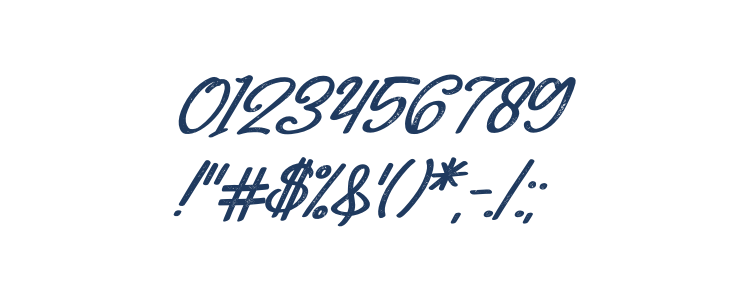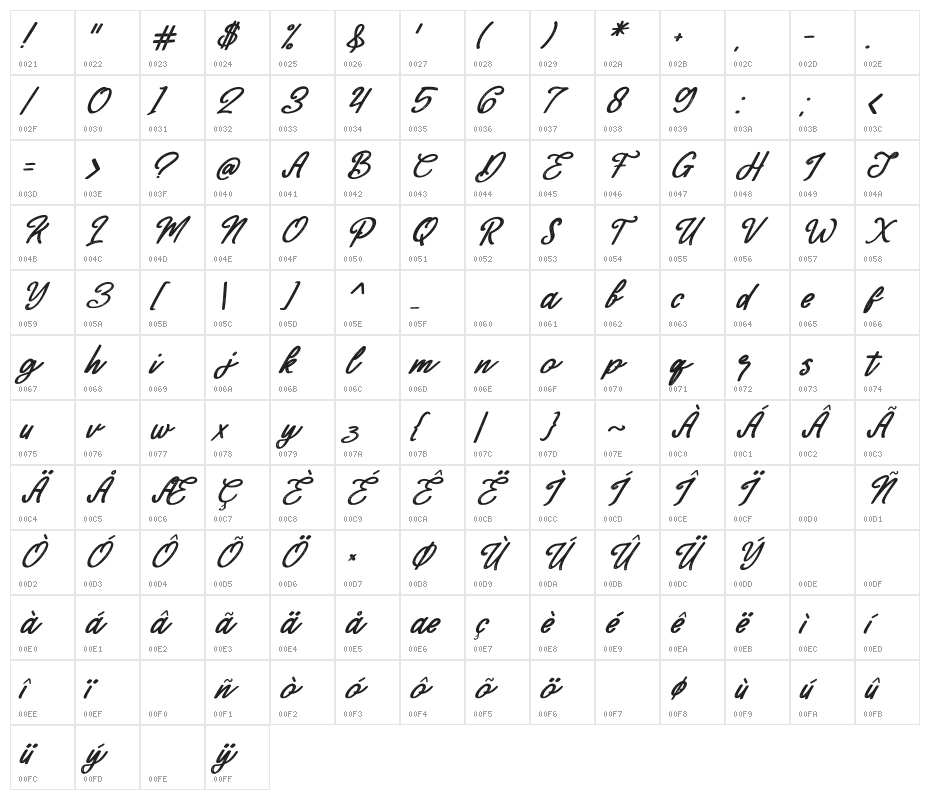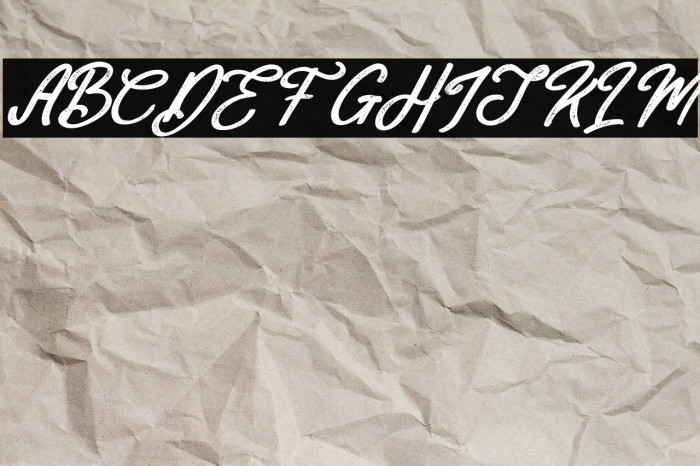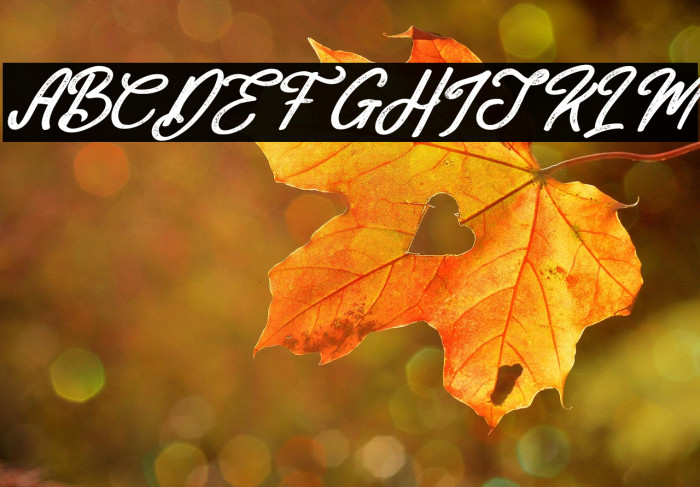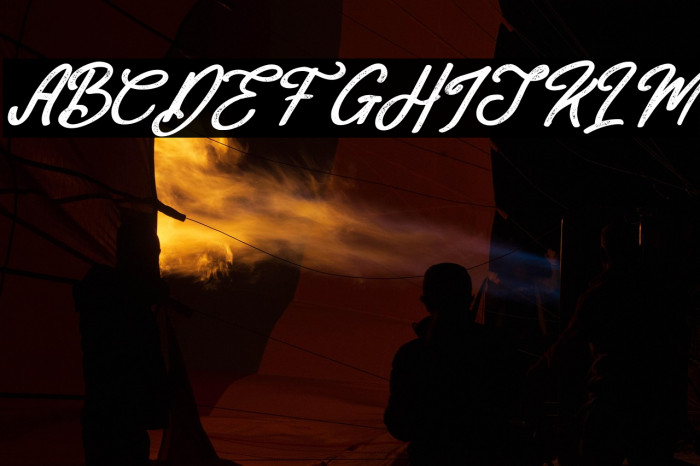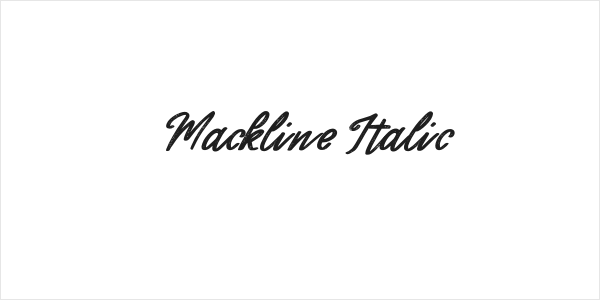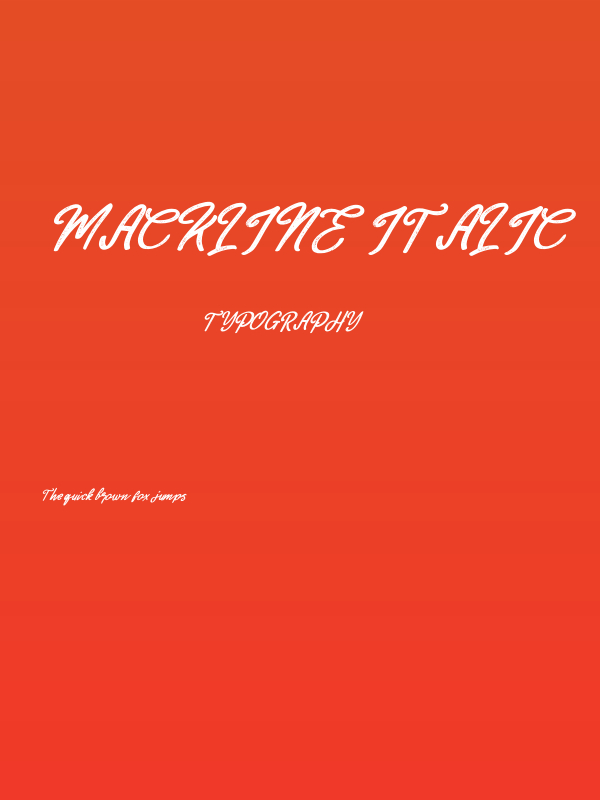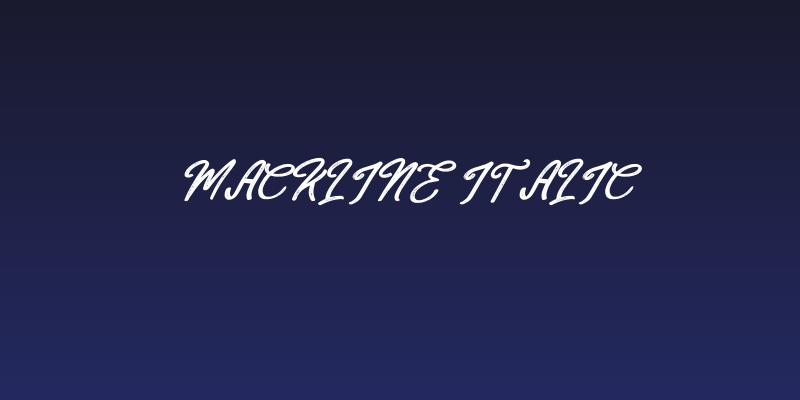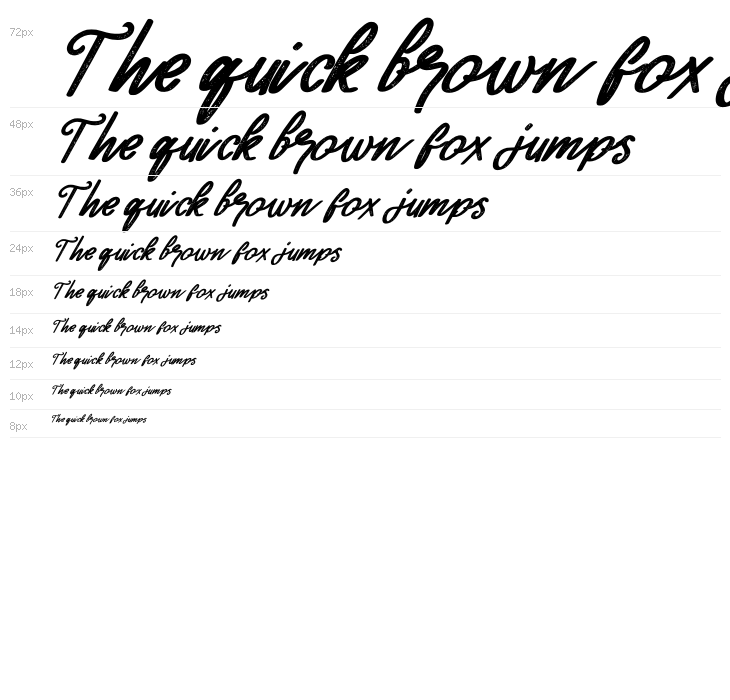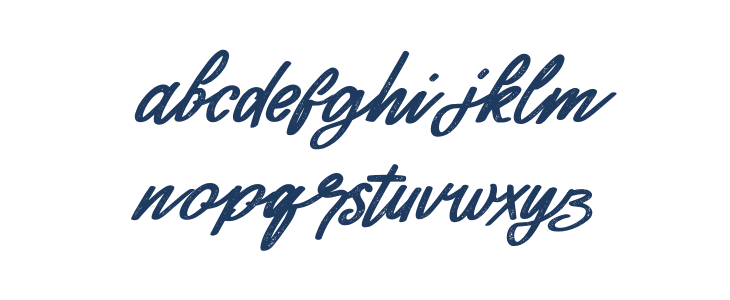
Mackline Italic Font
Mackline Italic Description
This font features a dynamic and flowing script style, characterized by its elegant, cursive letterforms. The strokes are smooth and connected, creating a sense of fluidity and movement. The uppercase letters are bold and prominent, while the lowercase letters maintain a consistent rhythm and balance. The numerals and special characters are designed to complement the overall aesthetic, with a playful yet sophisticated touch. The font's italic nature adds a sense of urgency and emphasis, making it suitable for a variety of creative applications.